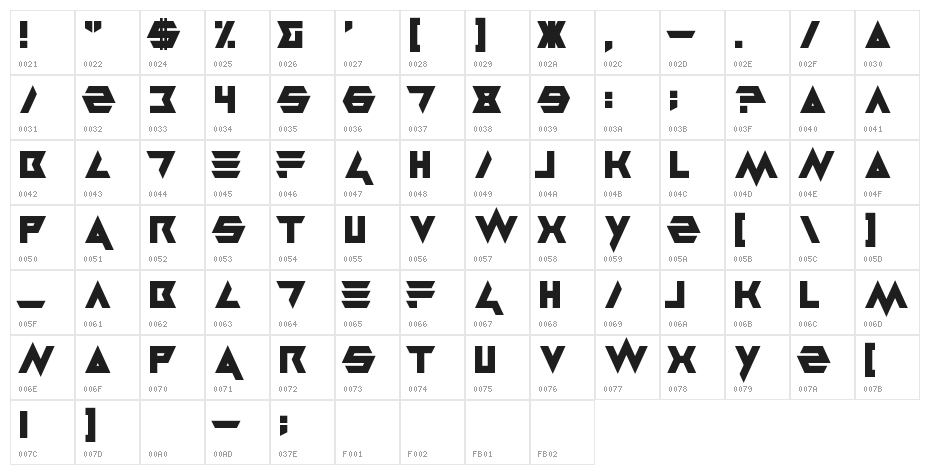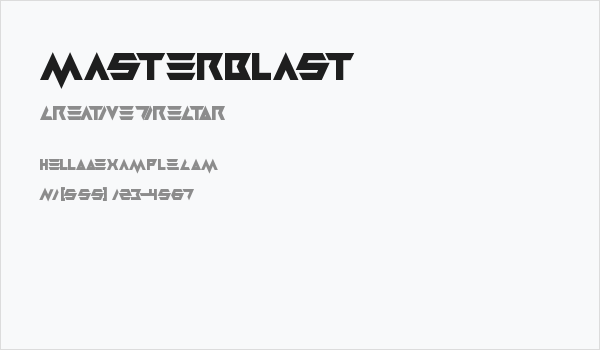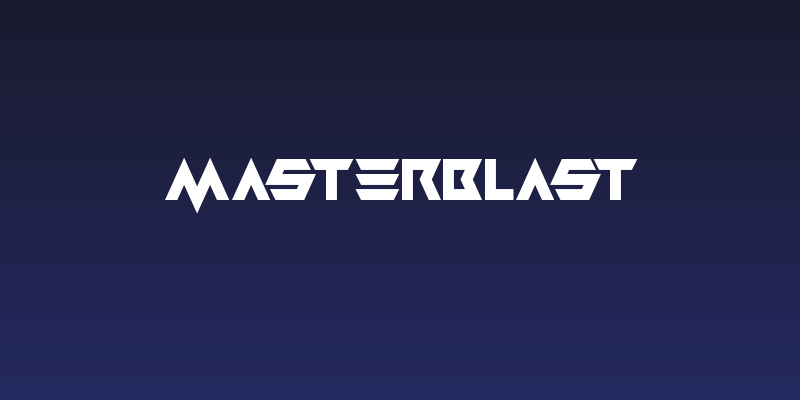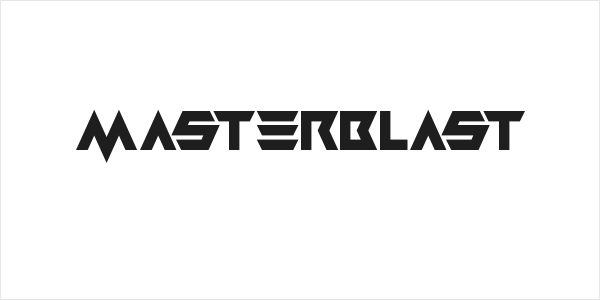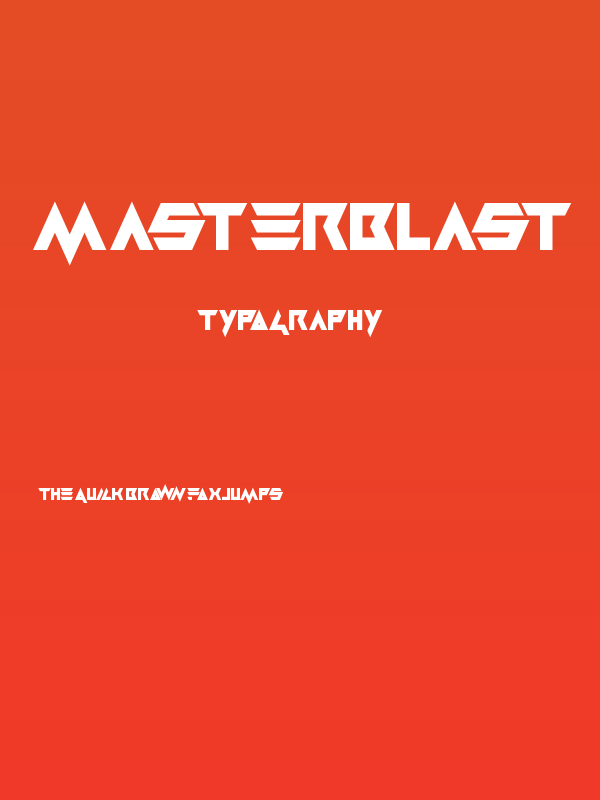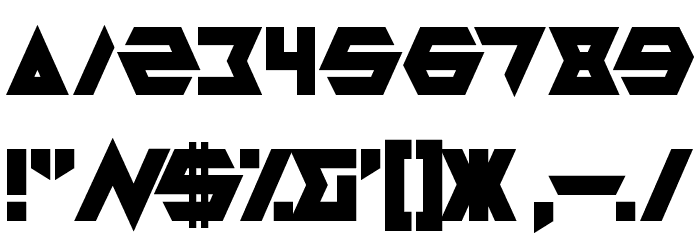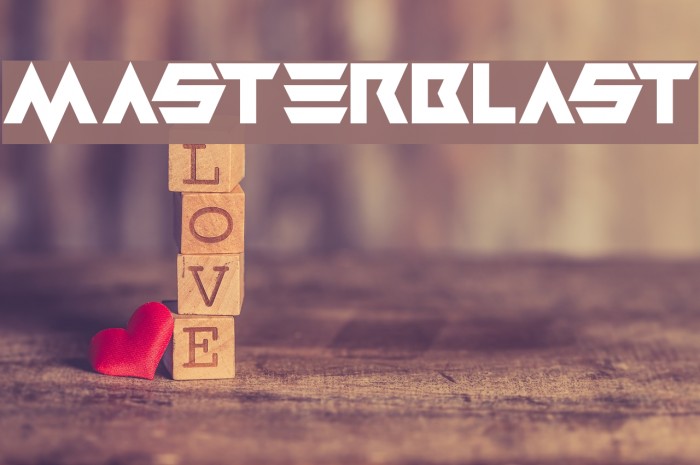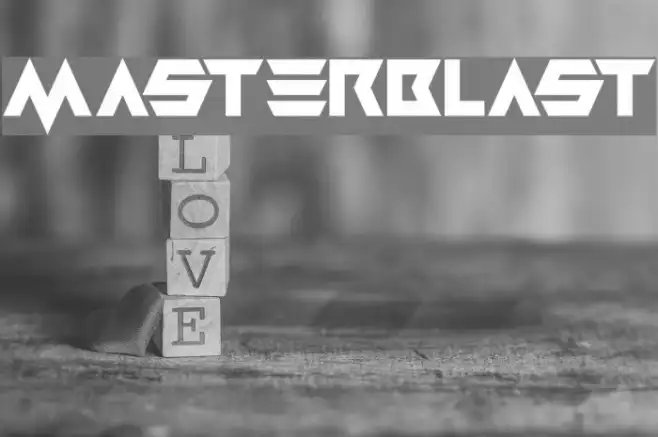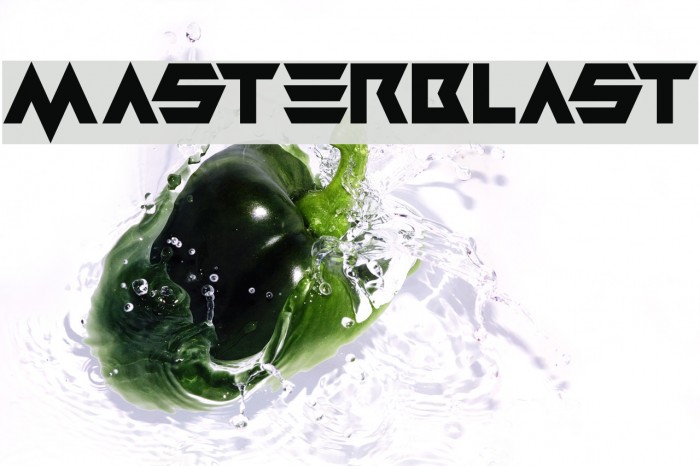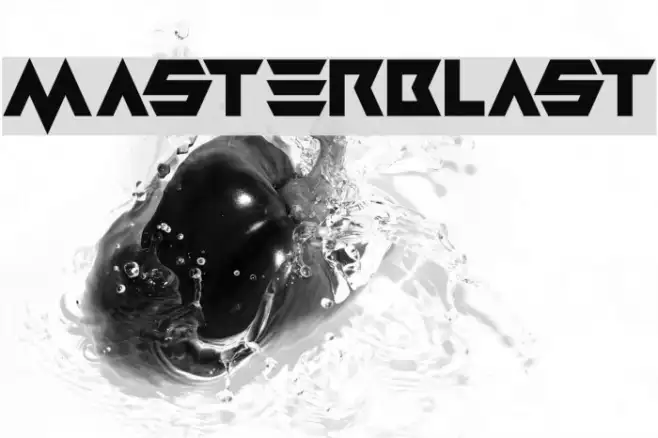
Masterblast Font
Masterblast Description
This font features a bold, geometric design with sharp angles and a futuristic aesthetic. Each character is constructed with thick, solid lines, creating a strong visual impact. The uppercase and lowercase letters maintain a consistent style, emphasizing symmetry and angularity. Numbers and special characters follow the same design principles, ensuring uniformity across all glyphs. The font's unique style is reminiscent of digital or sci-fi themes, making it ideal for projects that require a modern and edgy look.
| Proposed Projects | Ideal for sci-fi themed posters, video game titles, tech branding, and digital media. |